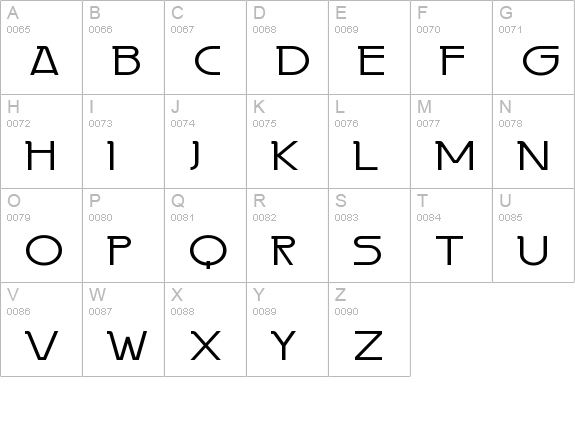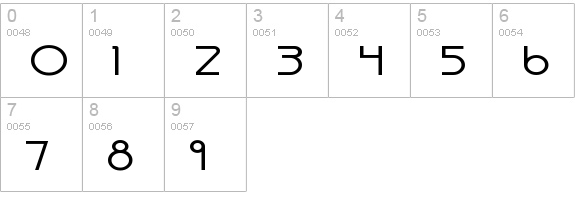
Persia Wide Normal Font Details
Persia Wide Normal is the standard, neutral, extended-width variant in the Persia typeface family \xE2\x80\x94 well suited to general body text, paragraphs, and standard typographic work.
Persia Wide Normal font is a captivating typeface that effortlessly combines elegance with a touch of modernity. Its clean and well-defined lines make it perfect for a wide range of design projects, from sophisticated branding to eye-catching headlines. With its wide letterforms, Persia Wide Normal brings a sense of spaciousness and balance to any composition. This font is designed with versatility in mind, allowing it to adapt beautifully to various design contexts. Whether used for print or digital media, Persia Wide Normal font stands out with its exceptional legibility, ensuring that your message is conveyed effectively to your audience. And the best part? Persia Wide Normal font is freely available to download at FontsMarket.com. This means that you can easily access this stunning typeface without any cost, making it an excellent choice for designers on a budget or those who simply appreciate high-quality fonts at no expense. So, don't miss out on the opportunity to elevate your designs with Persia Wide Normal font. Download it today from FontsMarket.com and unleash your creativity with this exceptional and freely accessible typeface.